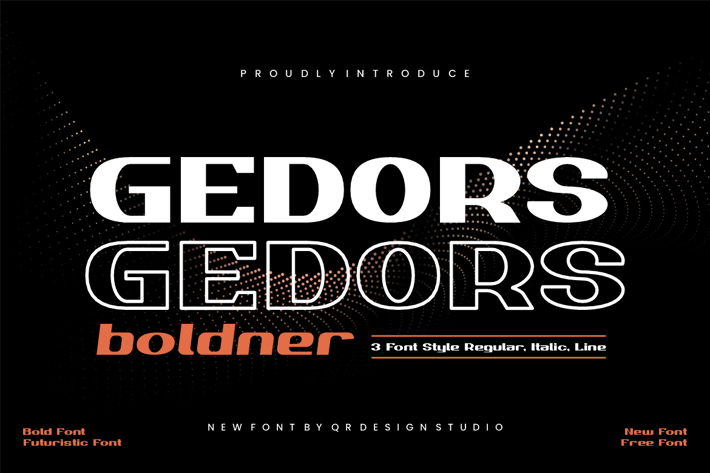
Gedors Boldner - Futuristic Font
Gedors Boldner - Futuristic Font is a bold and authentic display font.
The font is suitable for any branding project like logo, sport, and many more.